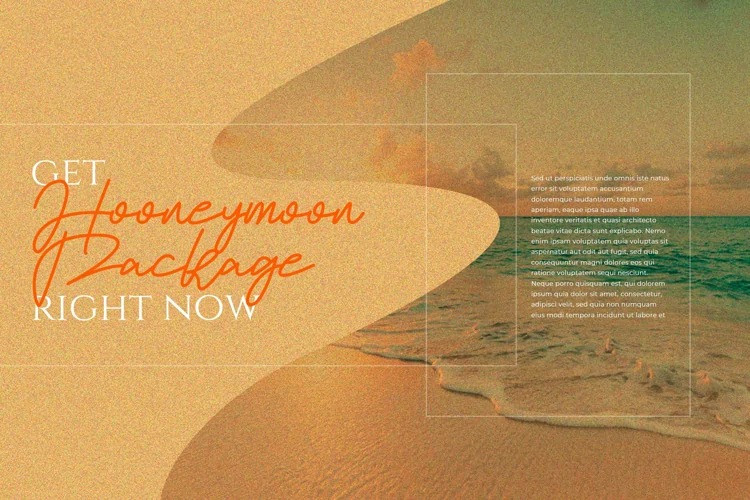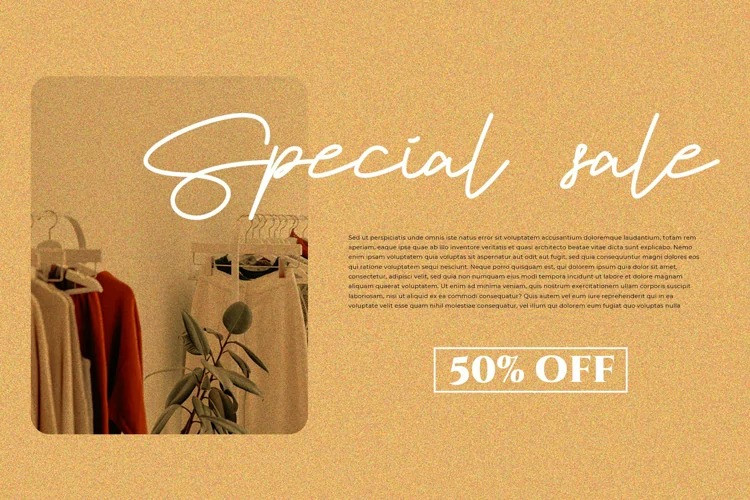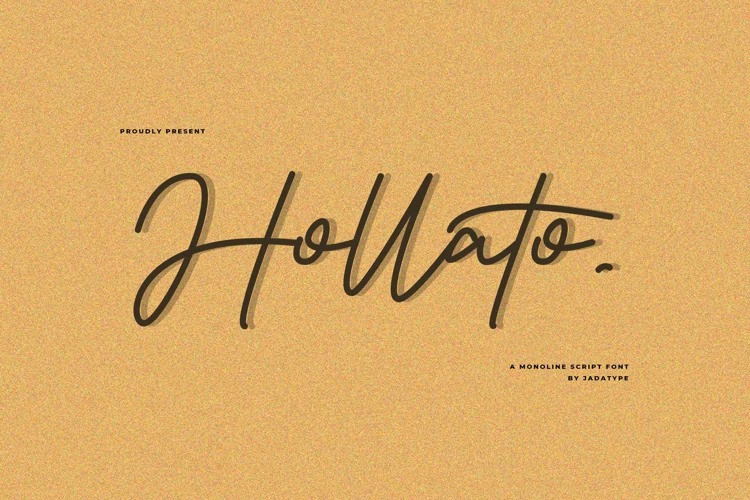
Hollato Font
Hollato Script Font is a new handwritten monoline script typeface, with a minimalist and organic feel. Suitable for your social media needs, branding, products, merchandise, crafts, and the like. contains standard English letters and some that support multilingual support. can be installed in applications such as Adobe Family, Affinity, MS Word or similar applications.